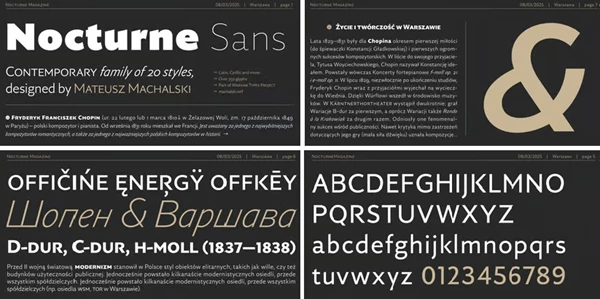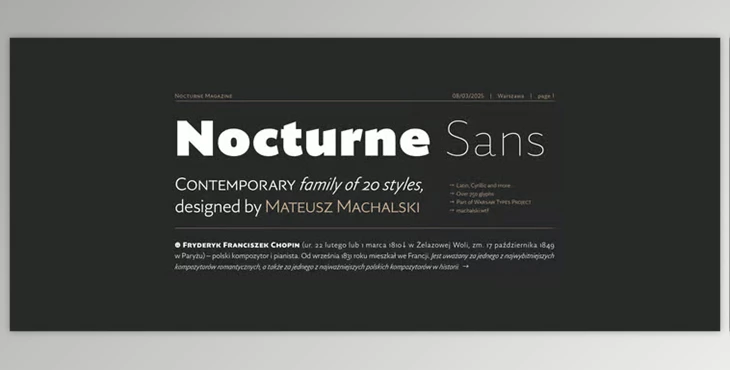
MyFonts - Nocturne Sans Font Family:
The Nocturne Sans Font Family is a unique collection of typefaces with both Serif and Sans styles, the latter added in 2025.
It originates from the Warszawskie kroje project, commemorating Karol Tchorek’s historical 1949 World War II site null memorial plaque designs for Warsaw. Nocturne PRO combines diverse cultural narratives with powerful visual aesthetics to embody Warsaw.
While the font family showcases Renaissance-inspired proportions and dynamic italics, bold geometric details give it a sharp edge. Adding Sans, led by Machalski alongside contributors Mularczyk, Bartosik, and Kosmynka, expands branding text versatility in 2025.